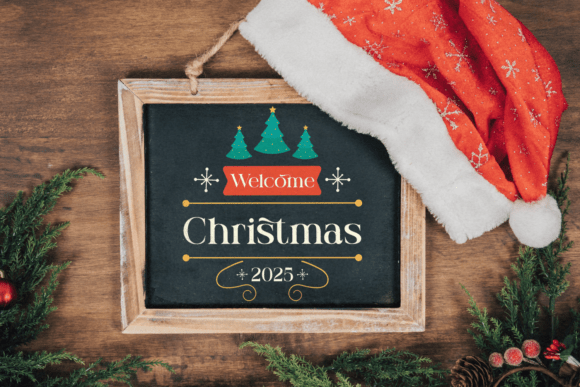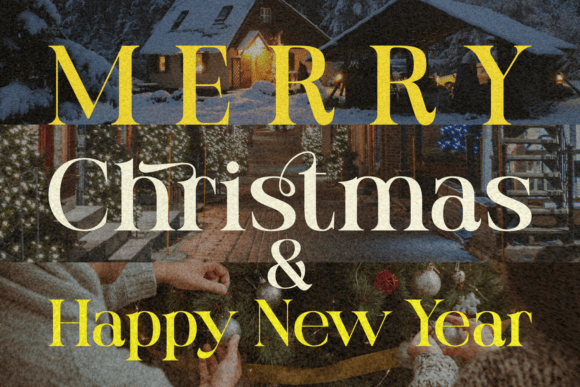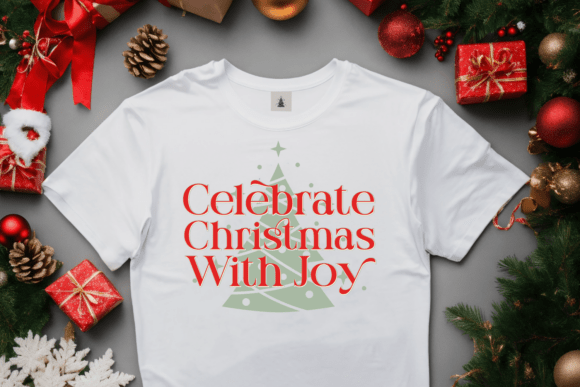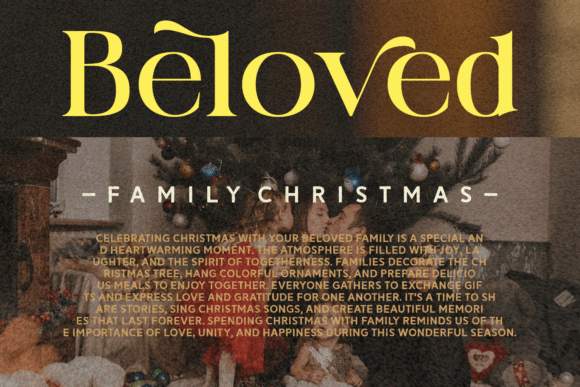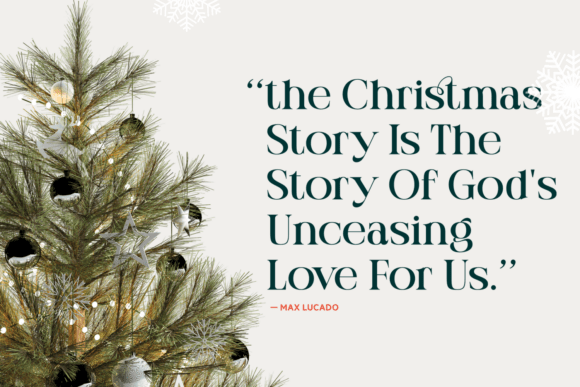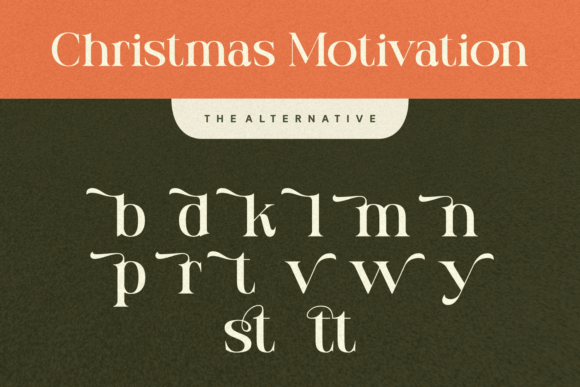
Introduction to Christmas Motivation Font
Unveil the sheer magic of “Christmas Motivation,” a multifaceted and authentic Christmas font encompassing the joy of the holiday season.
This lively font shines with Christmas light brightness, transforming ordinary words into extraordinary visions of a winter wonderland, filled with cozy Christmas trees and festive cheer Allow the soft yet edgy serif style to enhance your festive projects.
Key Features of Christmas Motivation Font
Why Choose Christmas Motivation Font?